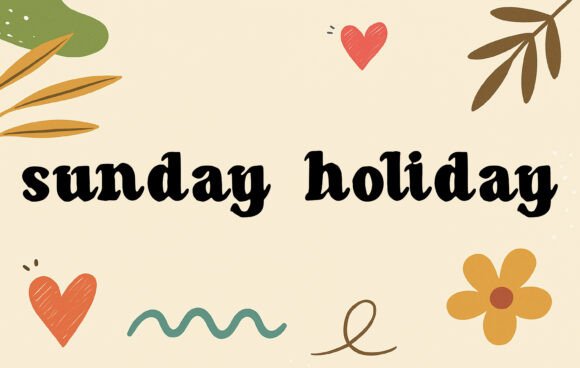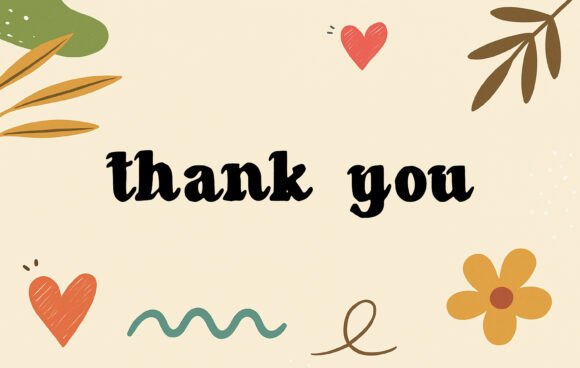
Audrey Font: Elevate Your Designs with Elegance and Versatility
In the world of typography, a font can make or break a design. For designers and crafters, finding the perfect font that combines style, legibility, and versatility can be a daunting task. However, if you’re looking for a font that can take your creative ideas to new heights, look no further than Audrey Font. This stunning font is designed to be a true favorite among designers, and for good reason.
A Font Designed for Excellence
Audrey Font is crafted with excellence in mind. Its design ensures that it is not only aesthetically pleasing but also highly legible, making it perfect for use as both title and body text. This dual-purpose functionality means that you can use Audrey Font across a wide range of design projects without worrying about readability or visual impact.
The versatility of Audrey Font is one of its standout features. Whether you’re working on a project for a magazine headline, a t-shirt design, social media graphics, branding materials, wedding invitations, or greeting cards, this font fits the bill. Its elegant and clean lines make it suitable for both formal and informal designs, allowing you to experiment with various styles and themes.
Magazine Headlines and Editorial Design
For editorial designers, Audrey Font offers the perfect blend of sophistication and readability. Its unique character ensures that your magazine headlines stand out on newsstands and digital platforms alike. The font’s ability to convey a sense of elegance and professionalism makes it an excellent choice for feature articles, editorials, and any other high-impact content.
Fashion and Apparel: T-Shirts and More
In the realm of fashion and apparel design, Audrey Font shines as a top choice for t-shirt designs, hoodies, and other wearable merchandise. The font’s stylish appearance and clear readability make it ideal for quotes, slogans, and branding elements that need to make a statement. Whether you’re designing for a client or creating your own line, Audrey Font can help elevate your designs to the next level.
Social Media and Branding
In today’s digital age, having a consistent brand voice and visual identity across social media platforms is crucial. Audrey Font can play a pivotal role in achieving this consistency. Its professional look and feel make it perfect for social media graphics, brand storytelling, and digital marketing materials. By incorporating Audrey Font into your branding strategy, you can create a cohesive and recognizable visual identity that resonates with your audience.
Wedding Invitations and Stationery
For those special occasions, Audrey Font offers a touch of class and sophistication. Its elegant design makes it an excellent choice for wedding invitations, save-the-date cards, and other stationery needs. The font’s beauty and legibility ensure that your event communications are both memorable and meaningful.
Why Choose Audrey Font?
- Legibility: Audrey Font is designed to be easy to read, making it suitable for both body text and headlines.
- Versatility: Its elegant design allows it to be used across a variety of projects, from digital designs to print materials.
- Elegance: Audrey Font brings a level of sophistication to any design, ensuring your projects stand out.
- User-Friendly: Perfect for designers of all skill levels, Audrey Font is easy to integrate into your workflow.
Audrey Font is more than just a typeface; it’s a tool for creativity and expression. Its unique blend of style, legibility, and versatility makes it an invaluable asset for designers and crafters looking to elevate their projects. Whether you’re working on a commercial project or a personal passion, Audrey Font has the potential to bring your creative ideas to life in ways you never thought possible. So why wait? Discover the possibilities with Audrey Font today and take your designs to new heights.